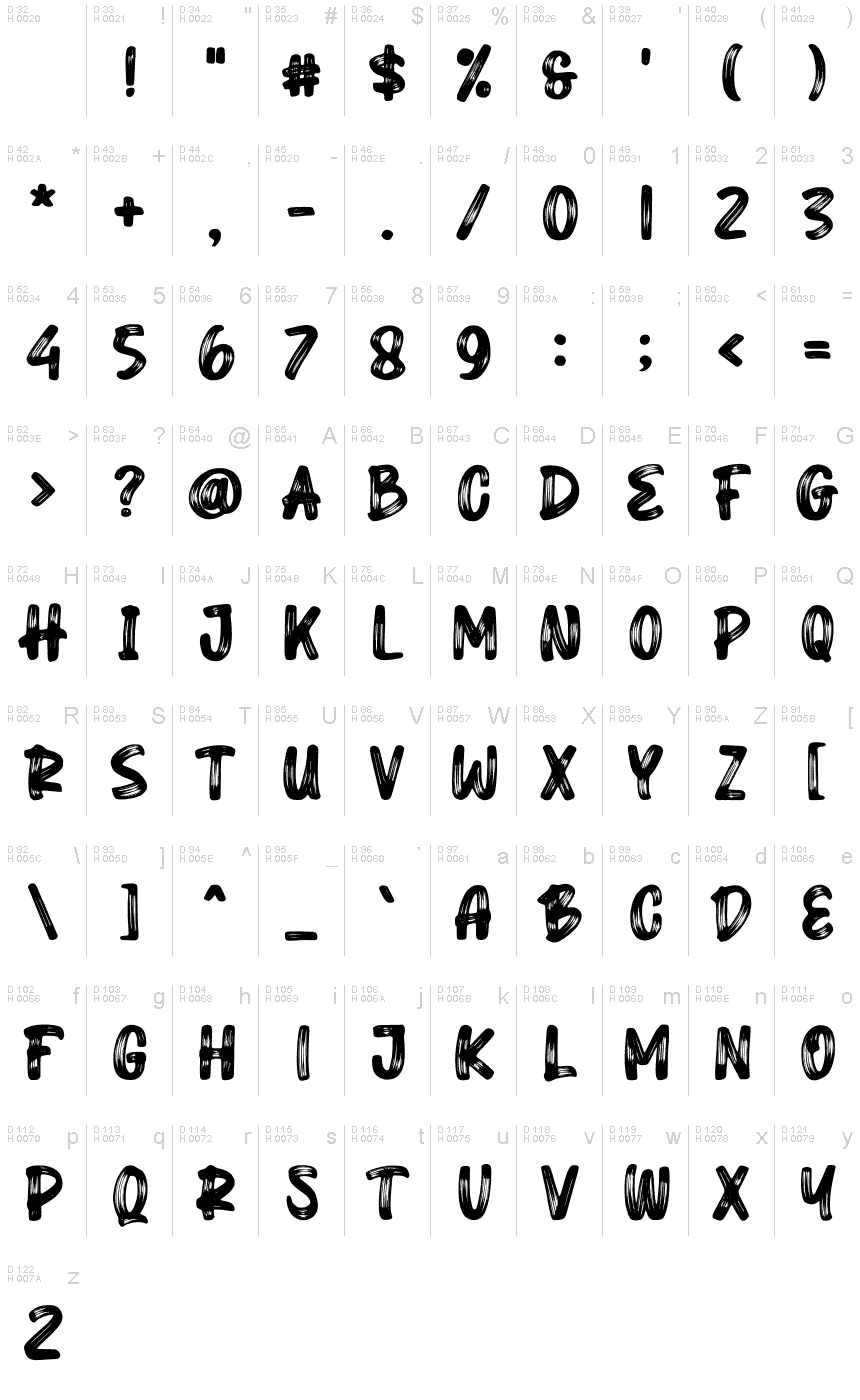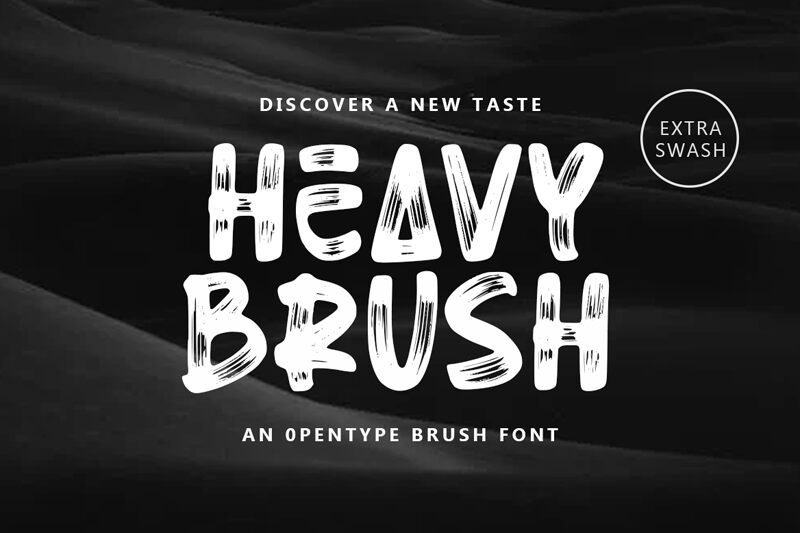
Heavy Brush Demo
With its bold brush strokes and striking design, Heavy Brush by Rochart Studio is the perfect font for projects that demand attention. This dynamic typeface adds a touch of personality to any project, from marketing materials to social media graphics. Its thick lines and unique texture make it ideal for creating eye-catching headlines or bold logos. Whether you're designing a poster for an event or creating a new brand identity, Heavy Brush's bold style will help your message stand out. Don't settle for boring fonts - try Heavy Brush today and unleash your creativity!